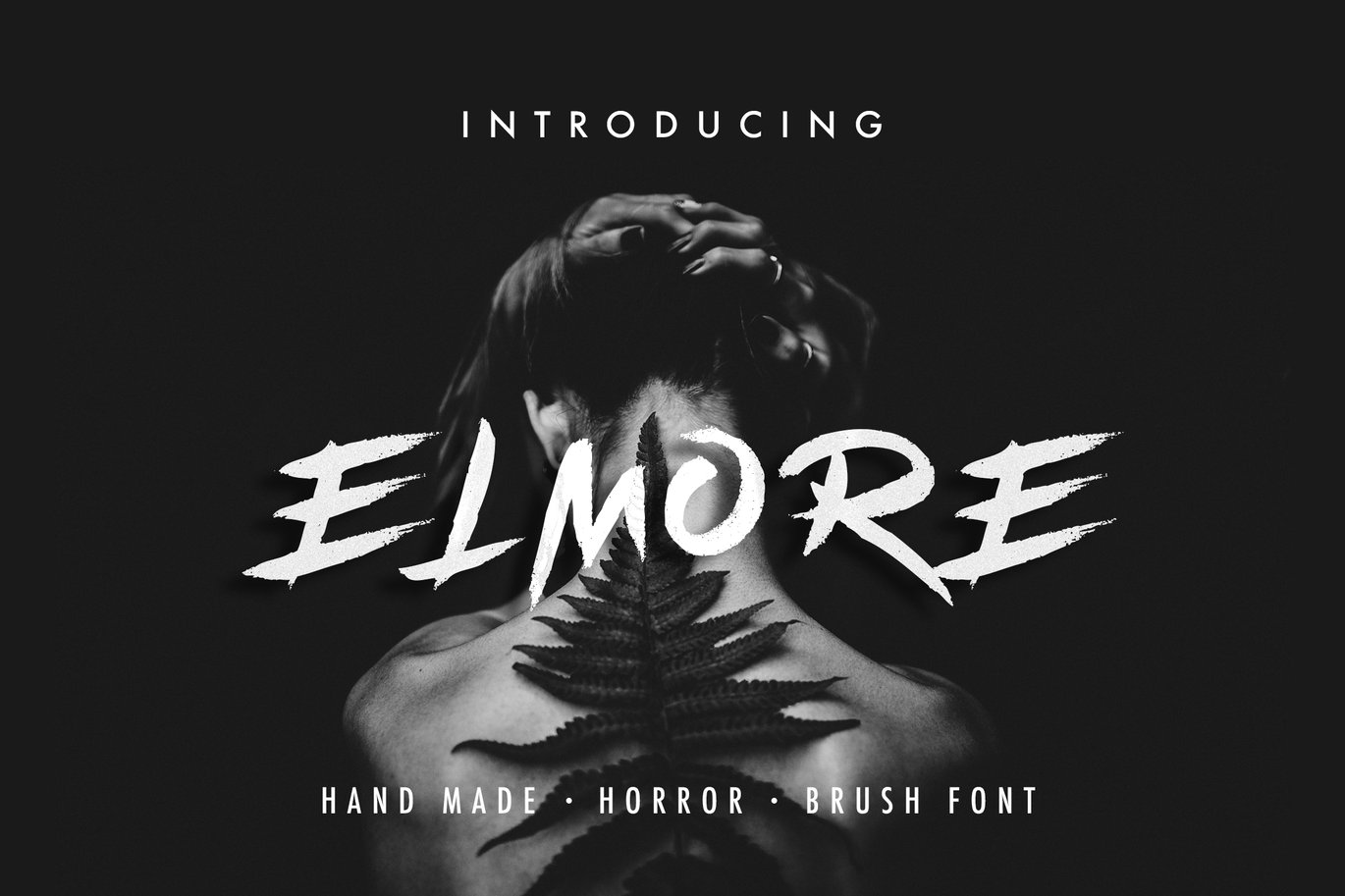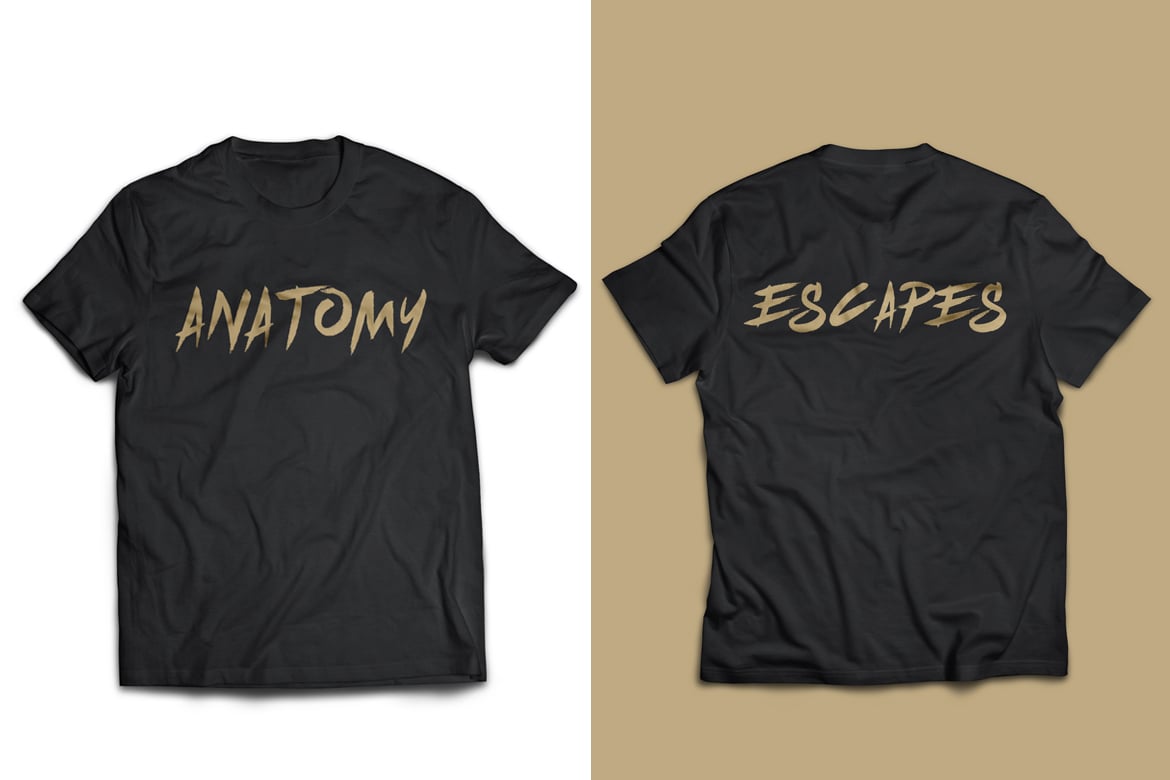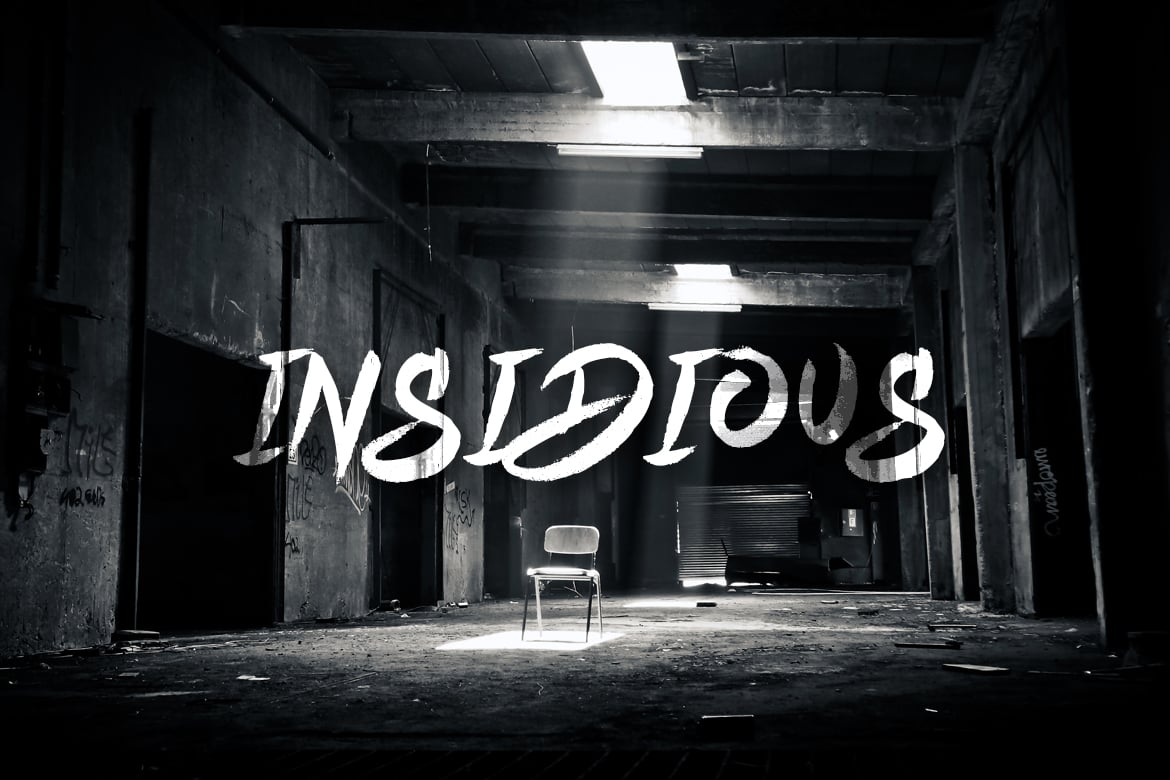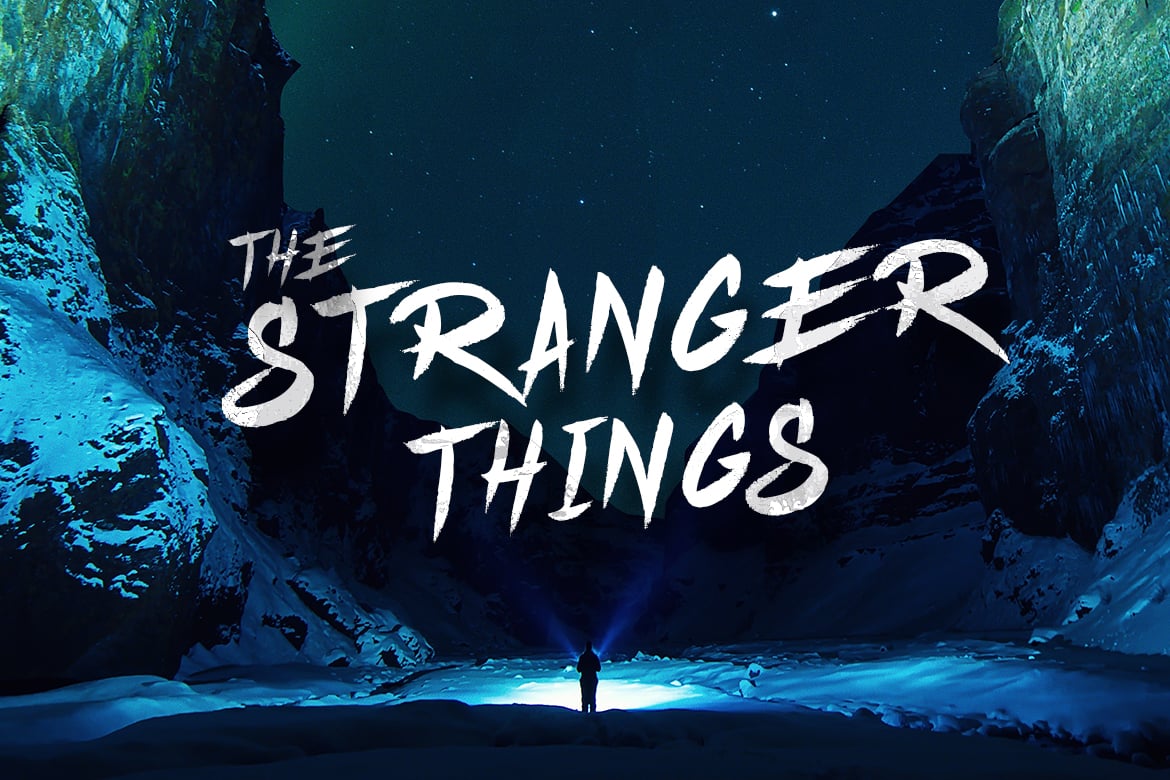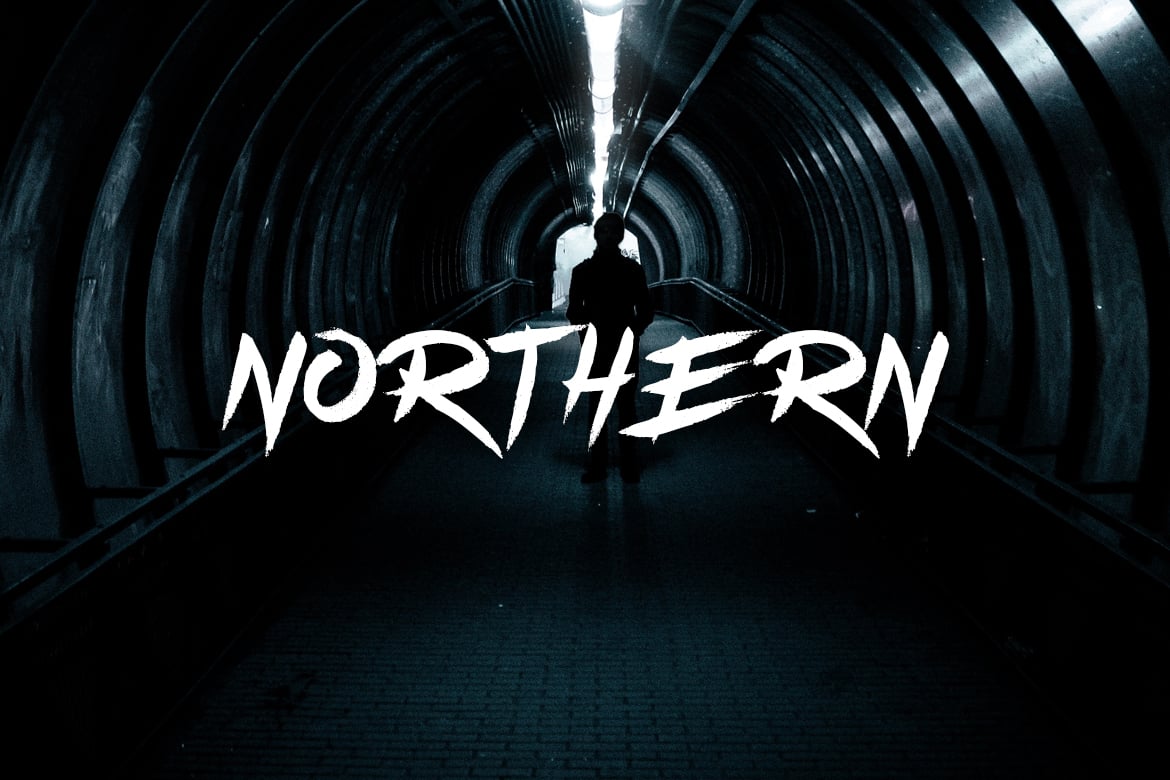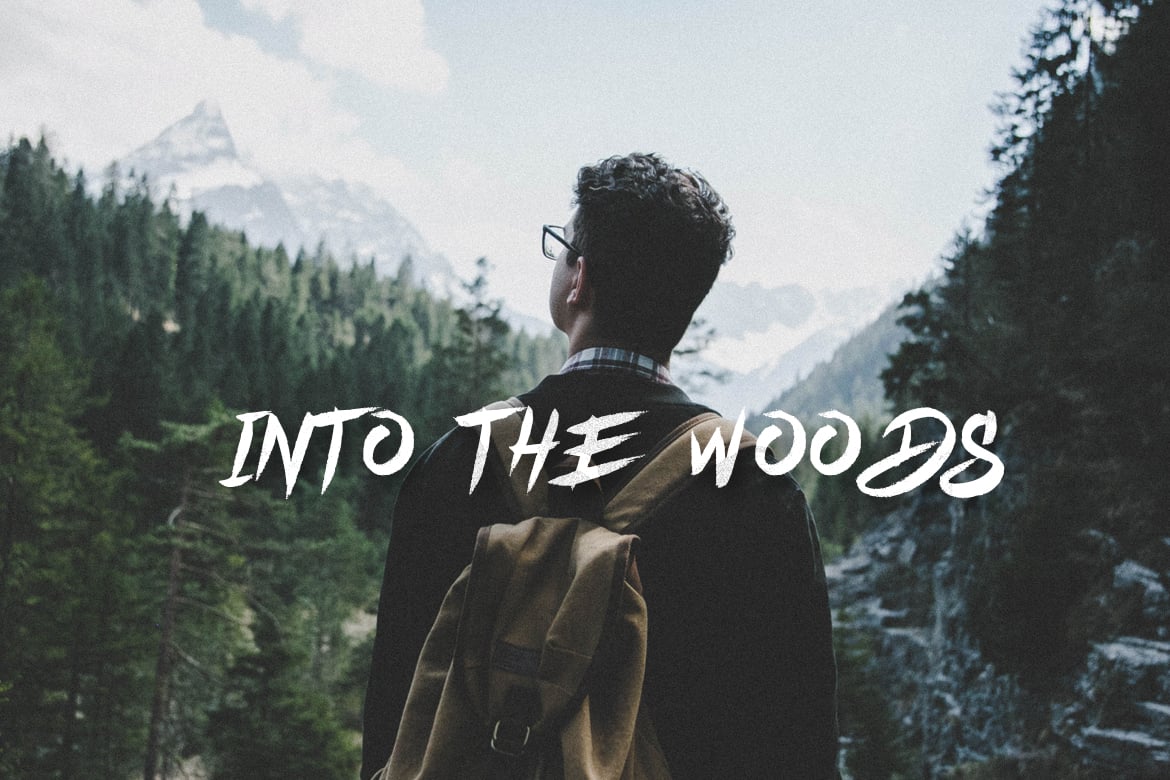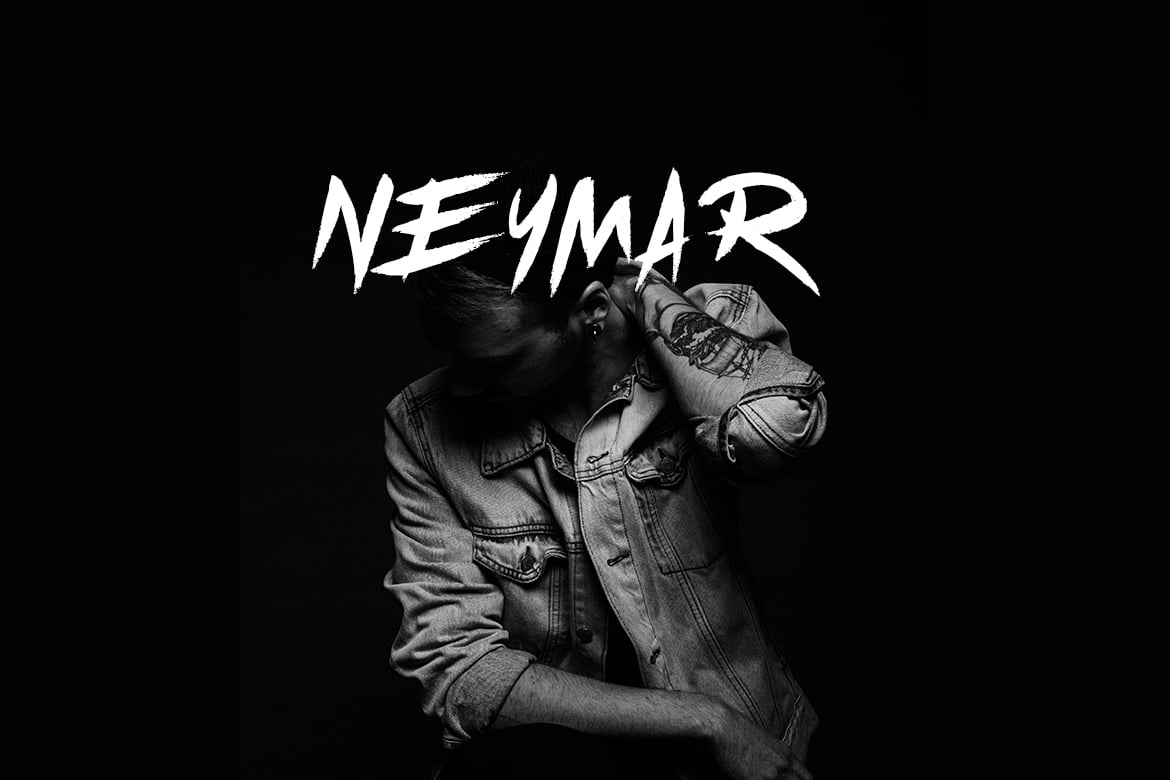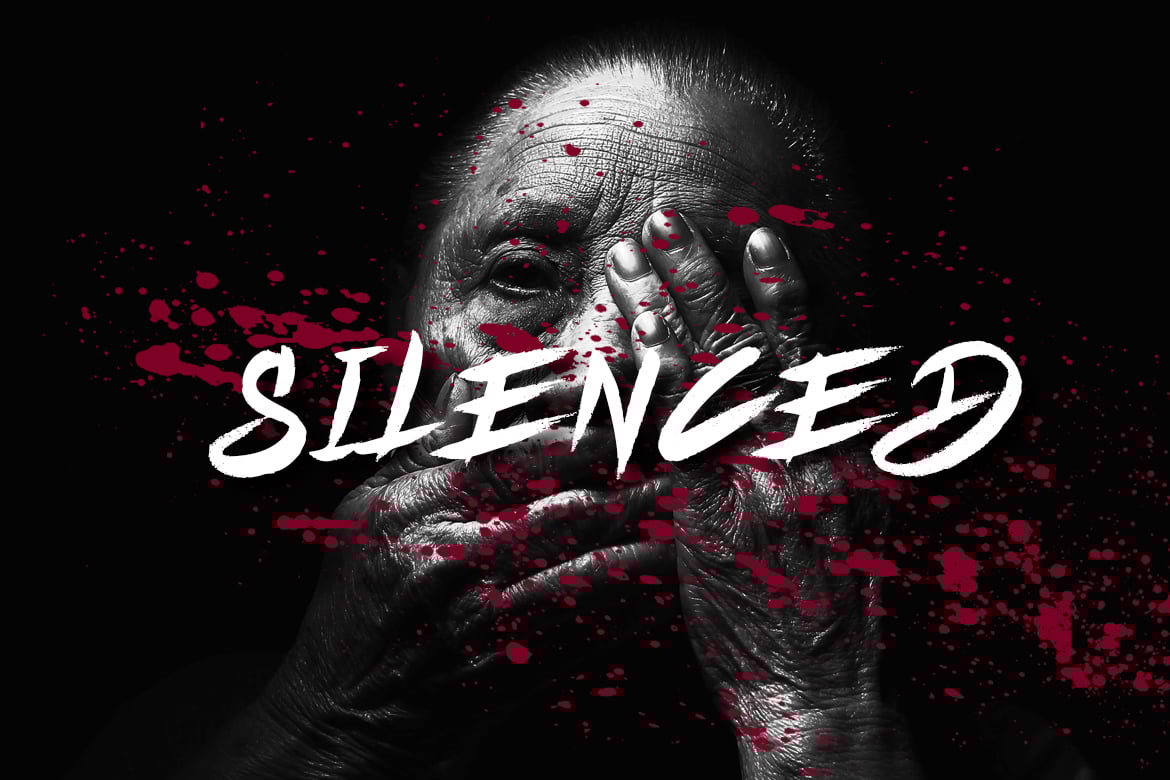
Elmore – Brush Font
We Provide You one of the best Hand Written Brush Font. Best match for logos, header, Titles, Prints & other Creative process possibilities.
Create a Extraordinary Typography / lettering results by using Elmore – Brush Fonts